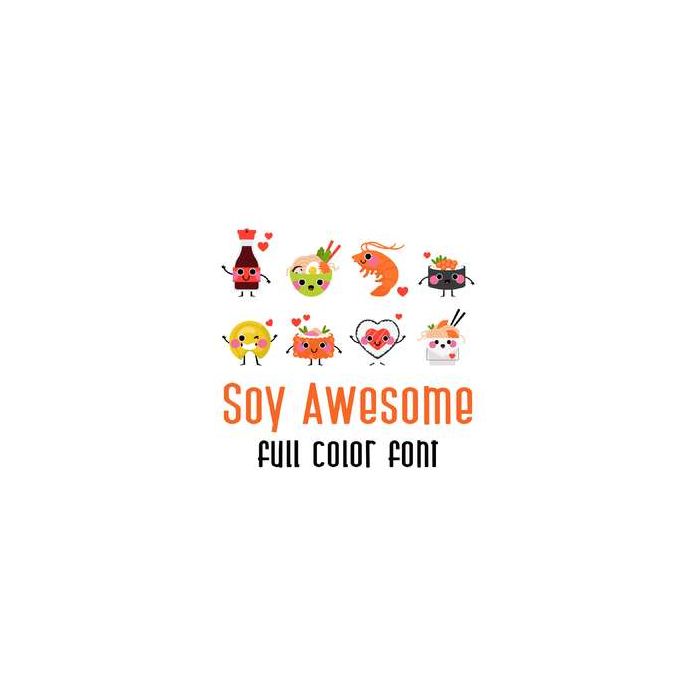
This adorable full color doodlebat font features adorable kawaii style sushi. Perfect for cards, crafts, gifts, decor, scrap book pages, planner stickers and more!